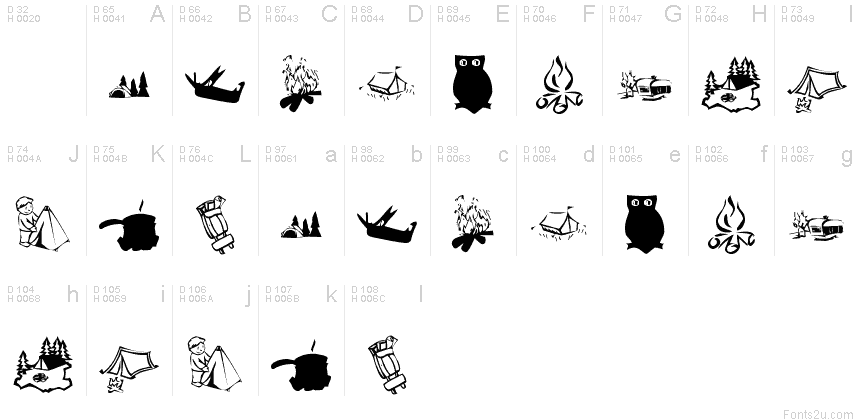
KR Camping
KR Camping font by Kat is a free nature dingbat typeface. Each glyph drops in a bold little campsite: flickering campfires, cozy tents tucked against tall pines, coffee pots and gear in chunky, inky silhouettes. The icons feel hand-cut, with slightly irregular edges that give layouts a warm, outdoorsy charm rather than a sterile clip-art look.
Using KR Camping, you can quickly build artwork for camp flyers, scout handouts, trail maps, kids’ activity sheets, outdoor event posters, and rustic T‑shirt designs. The icons hold up well at both small sticker size and large banner scale. For text, pair this free font’s illustrations with a clean sans serif so the imagery stays in the spotlight.